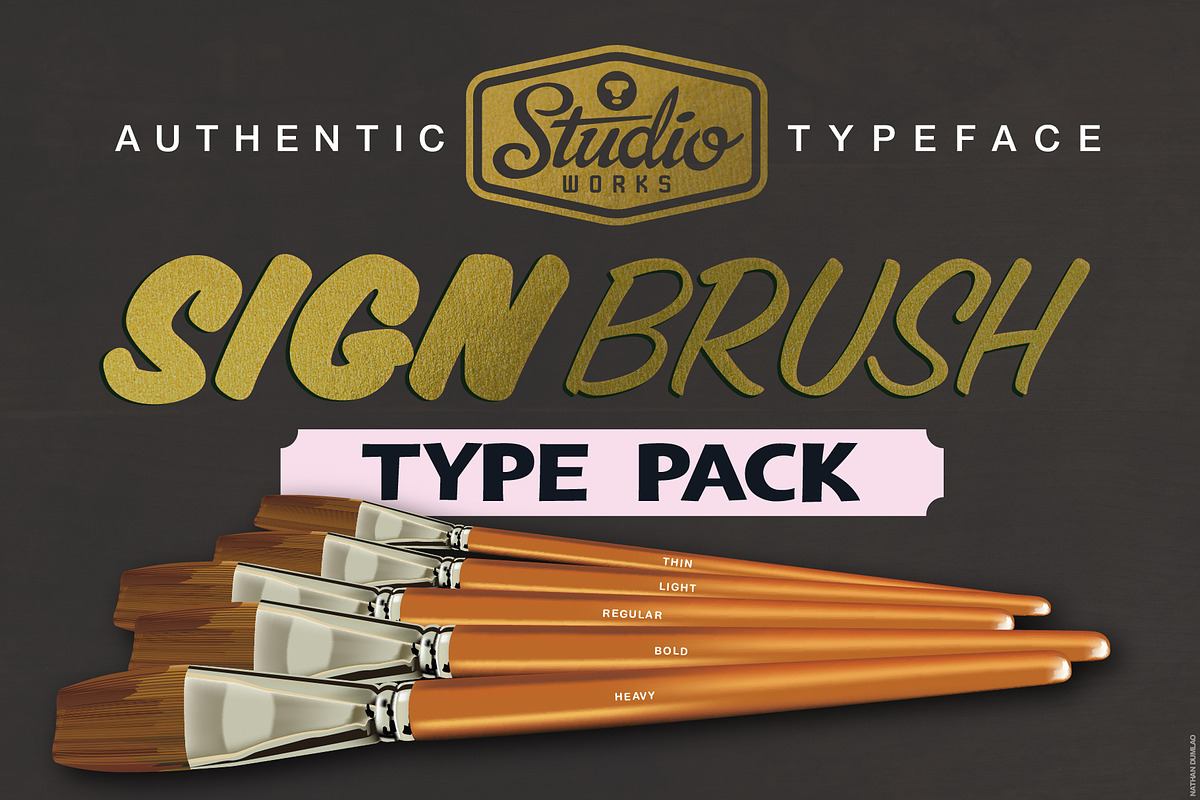
Sign Brush Type Pack | Display Type Free Download
Make a bold, energetic statement with the Sign Brush Type Pack | Display Type Free Download. This dynamic font pack includes several brush-style display fonts designed to capture the raw, artistic feel of hand-lettering. Perfect for logos, posters, signage, t-shirts, and any creative project that needs an expressive and eye-catching style.
Each font in the pack features bold, fluid brush strokes that give your designs an authentic, handcrafted look. The pack includes uppercase and lowercase letters, numerals, punctuation, and multilingual support, providing you with everything needed to create powerful, creative typography.